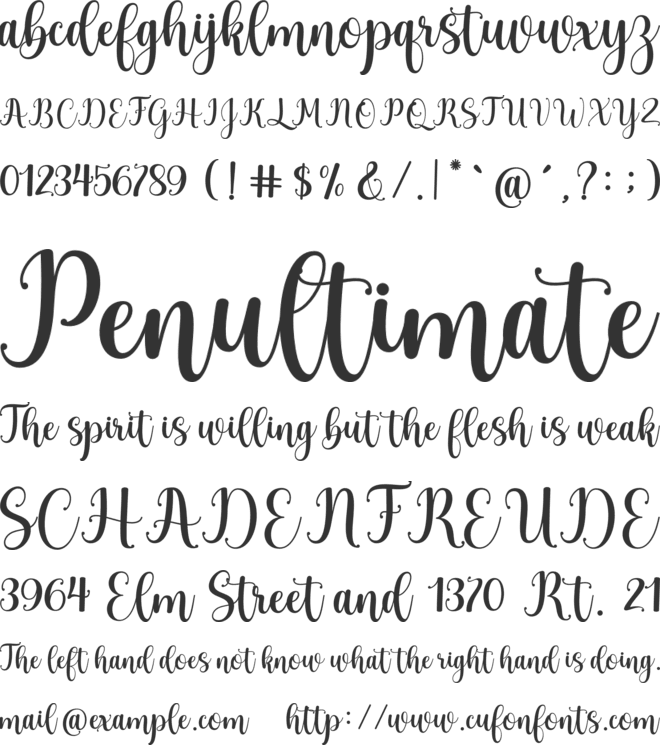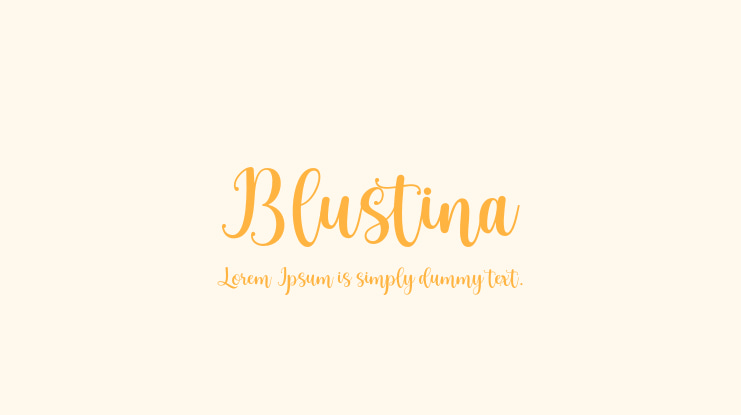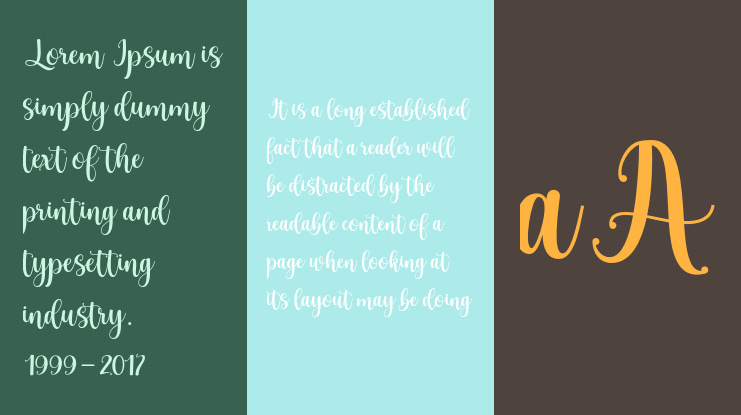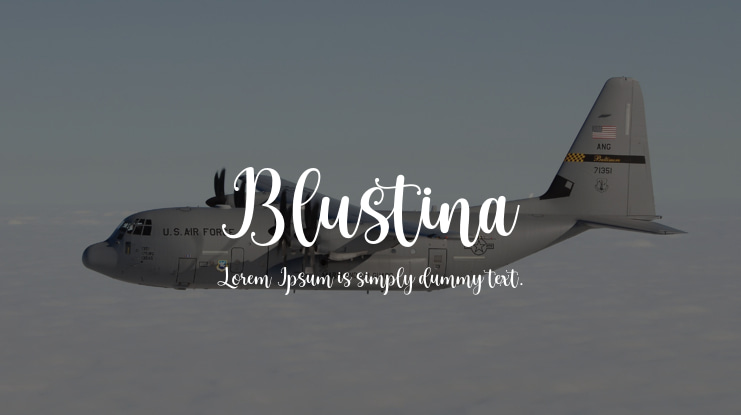
Blustina Font Family
Blustina Script and Extras is a beautiful and modern font. Looks amazing on wedding invitations, thank you cards, mother's day cards, quotes, greeting cards, logos, business cards and other designs.
This font is PUA encoded which means you can access all the glyphs and sweeps easily!
This font includes OpenType features with alternative styles, ligatures, and multiple language support.